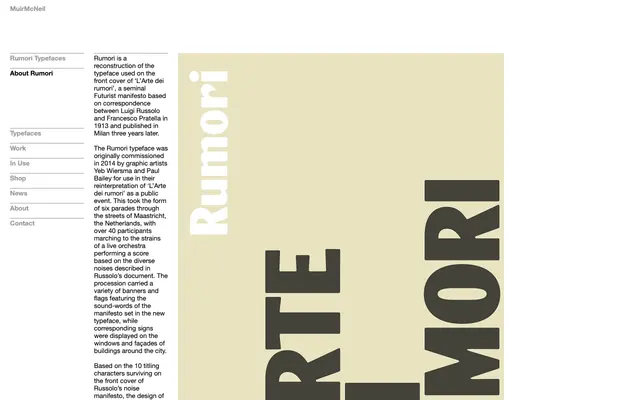
A speculative reconstruction of the wood type appearing on the cover of Luigi Russolo's 1913 Futurist noise manifesto, built outward from just ten surviving titling characters.
Originally commissioned in 2014 for a public event reimagining Russolo's 'L'Arte dei rumori' as a series of street parades through Maastricht, the typeface began with only the ten titling characters legible on the manifesto's front cover. When research into the original wood type's origins proved inconclusive, MuirMcNeil drew on grotesque and gothic display faces from the same era to reconstruct the missing characters. The result is less a traditional revival than a speculative reinvention, grounded in period research but shaped by editorial judgement.
Reconstructed from surviving wood type characters on a 1913 Futurist manifesto cover, drawing on grotesque and gothic display typefaces of the period; its titling-only nature and historical speculative reinvention place it firmly in display territory.